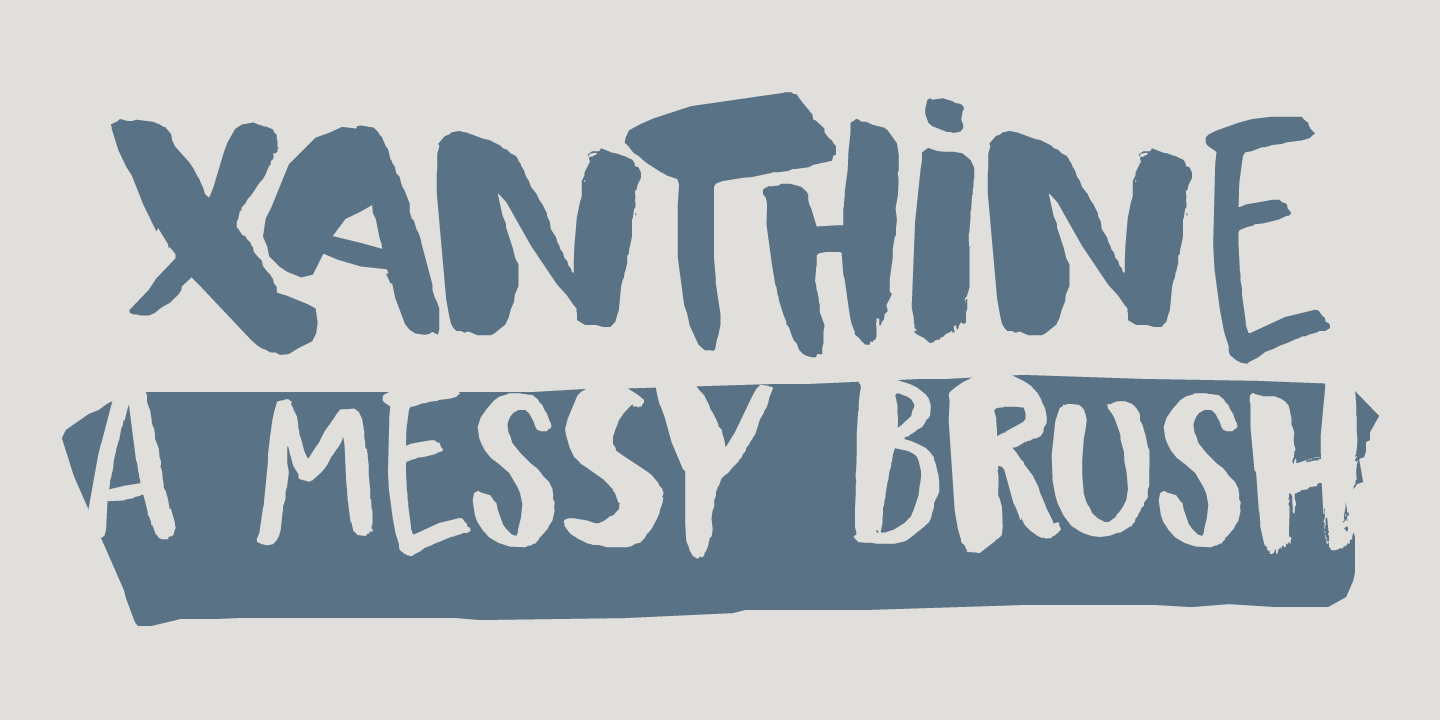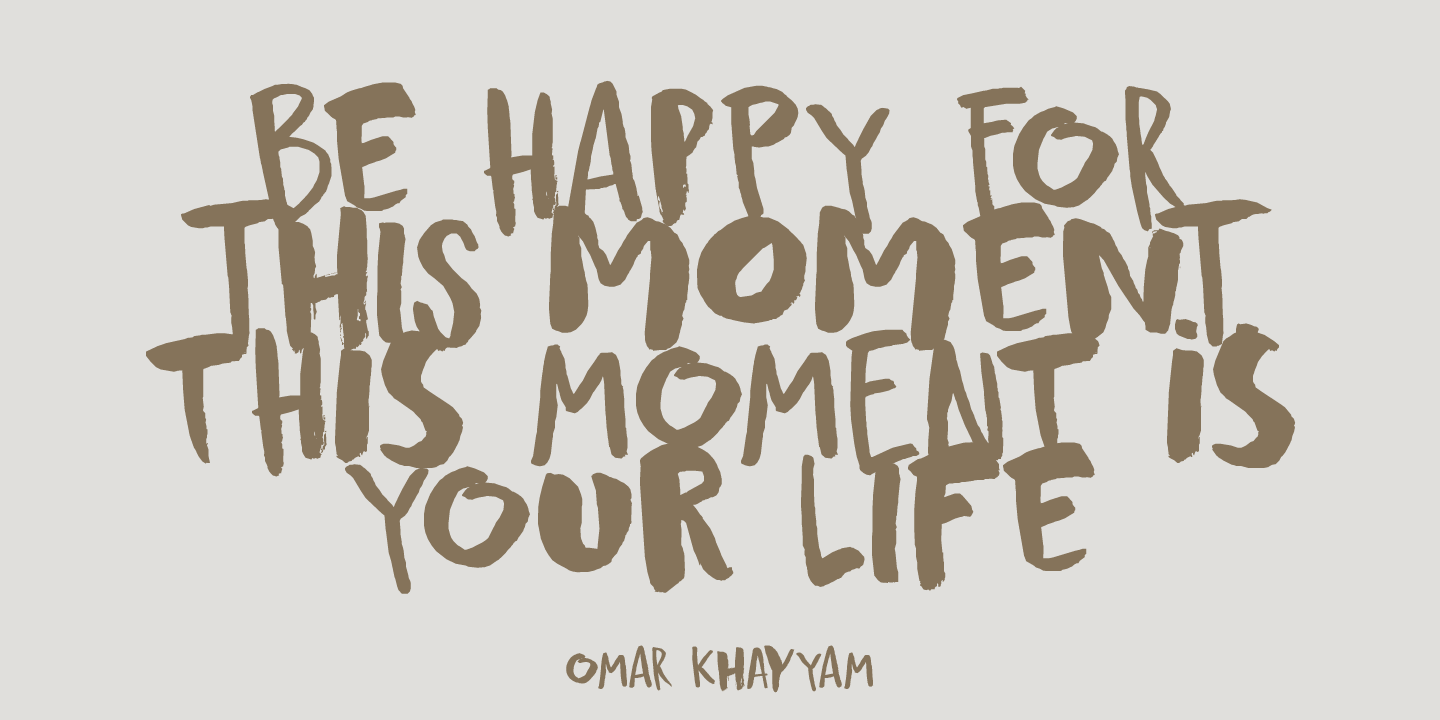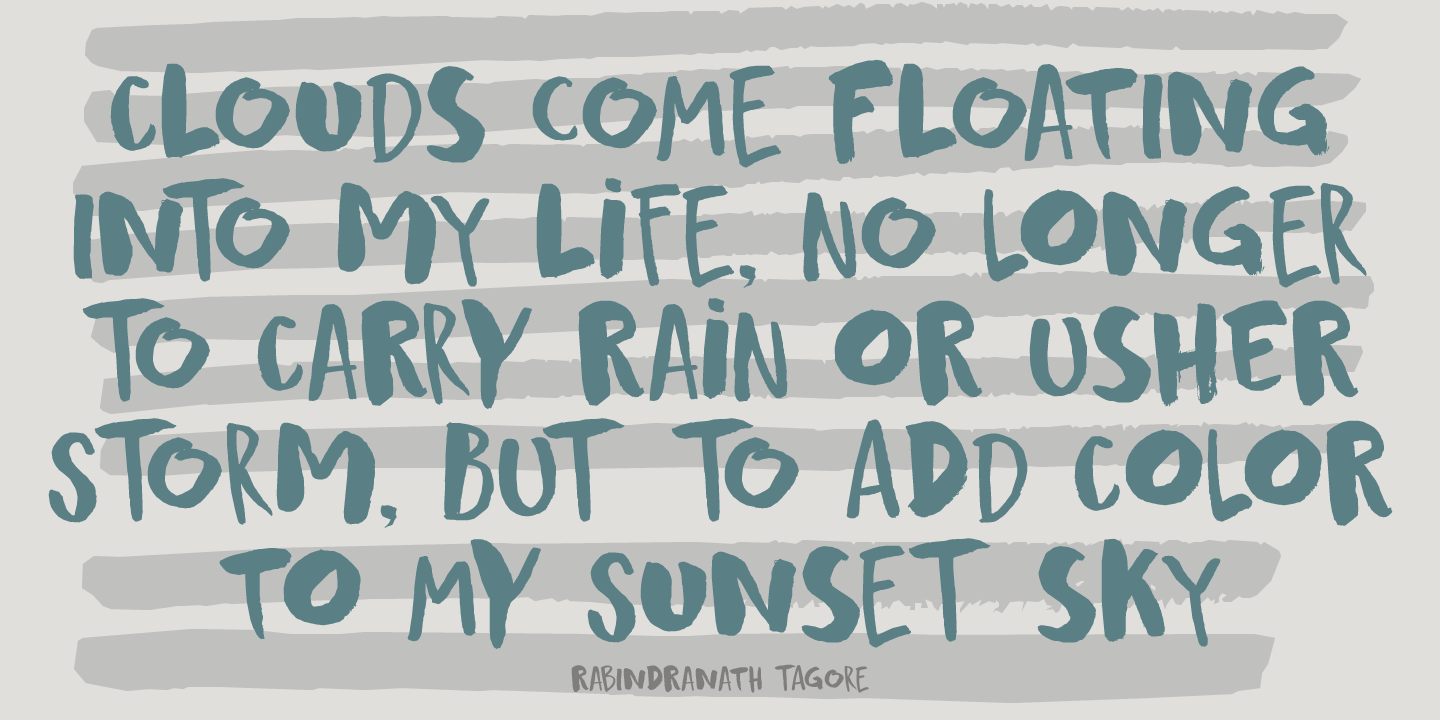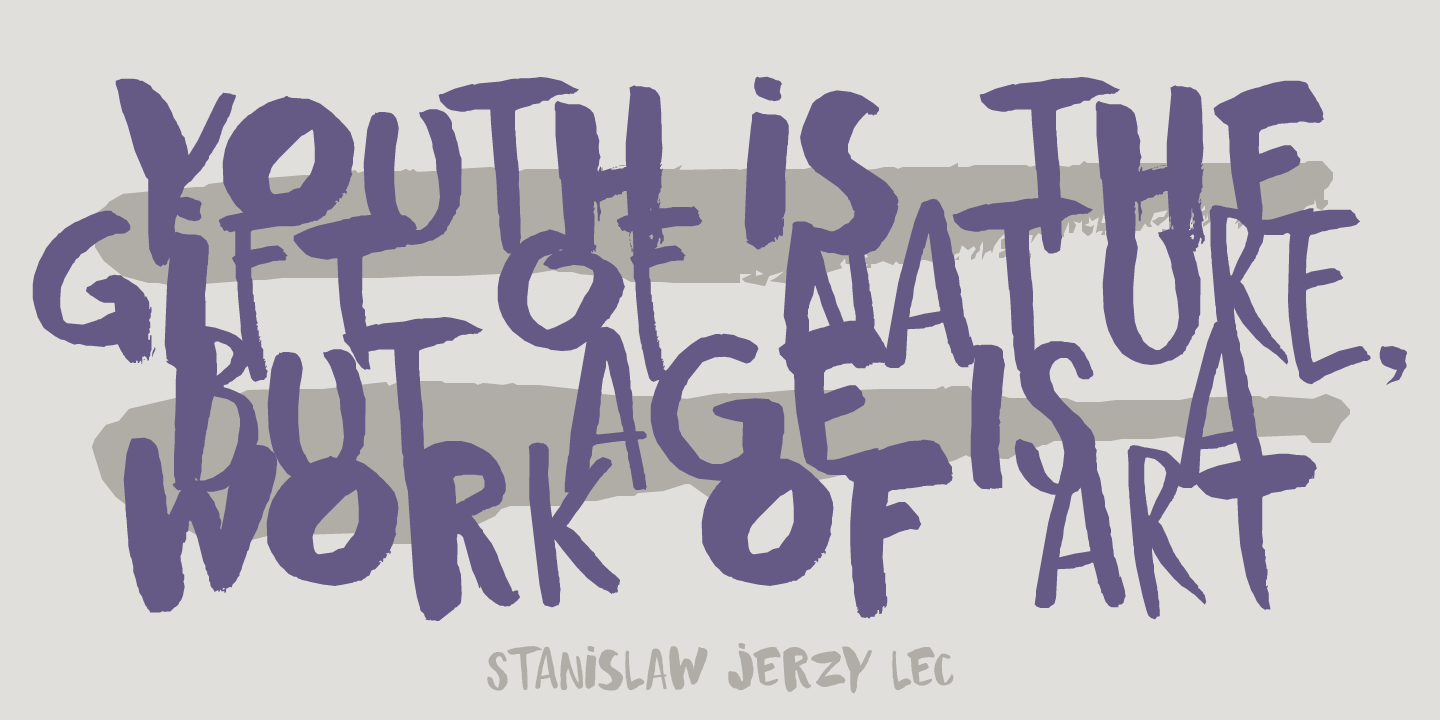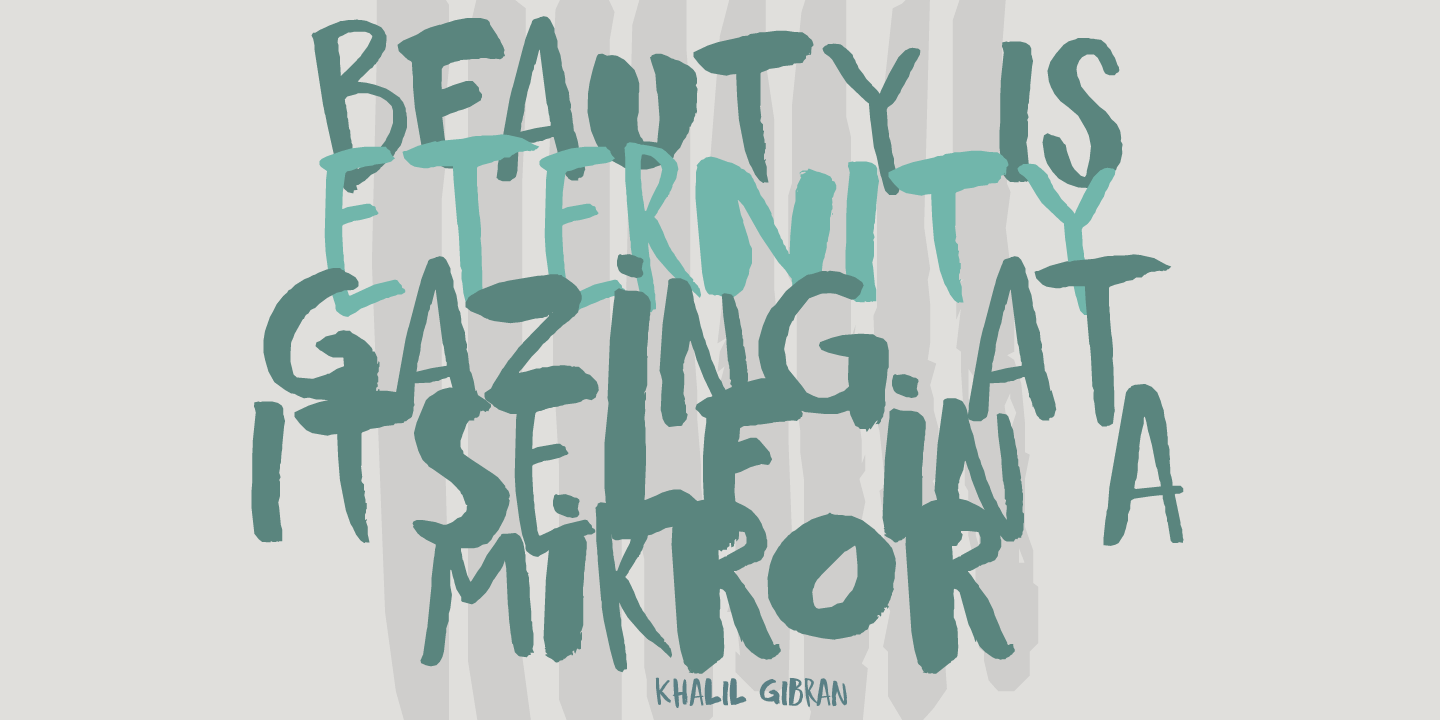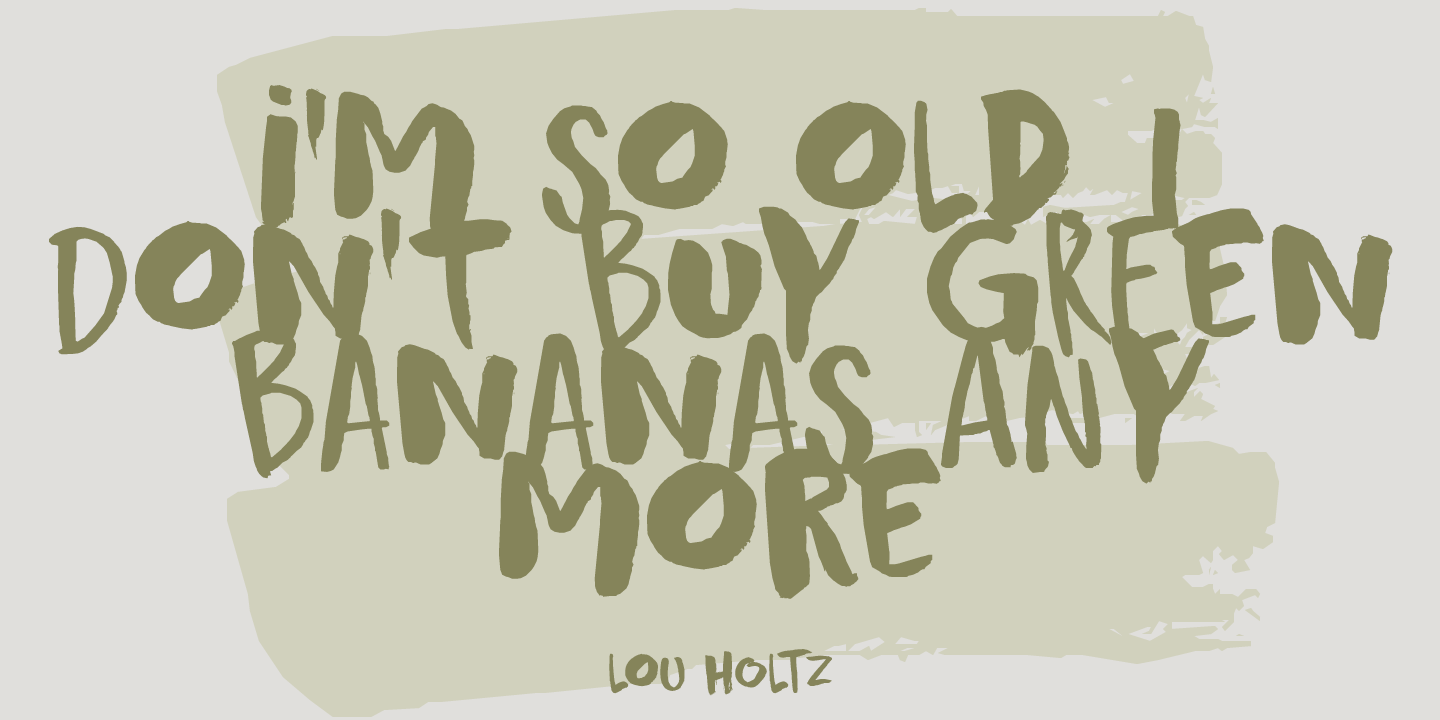
Xanthine
Xanthine is a purine base found in most human body tissues. Yes, you can forget that. I don't even know what it means, but I suddenly realized that I was running low on fonts with an ?x? in the name. Xanthine font is a messy brush: it is all caps, but upper and lower case mingle freely. It comes with a whole bunch of diacritics and some interesting ligatures as well. I have included a very handy shapez pack and a truckload of arrows - anything to make you happy!